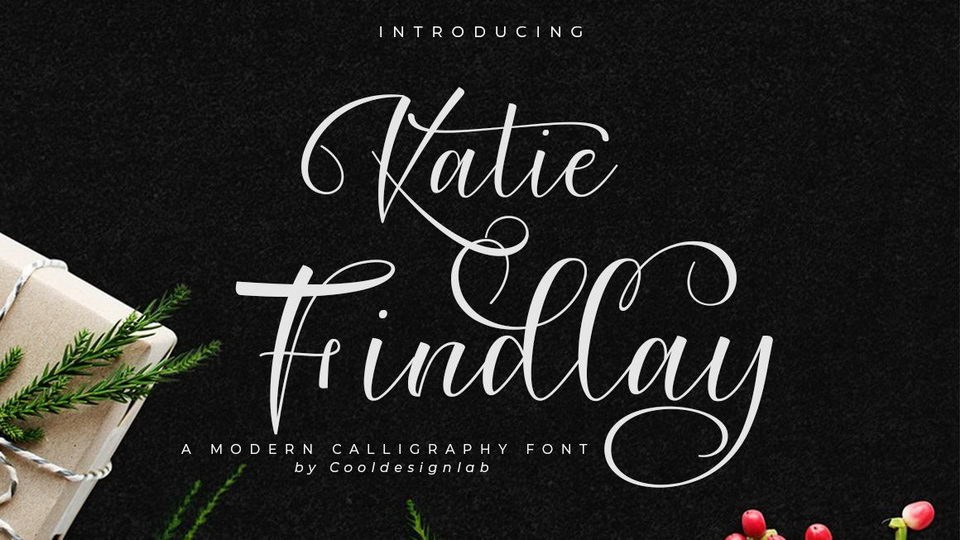
Download Katie Findlay font, a charming modern calligraphy script that is very skillfully and meticulously designed. Katie Findlay is suitable for greeting cards, branding materials, business cards, quotes, posters, and more!